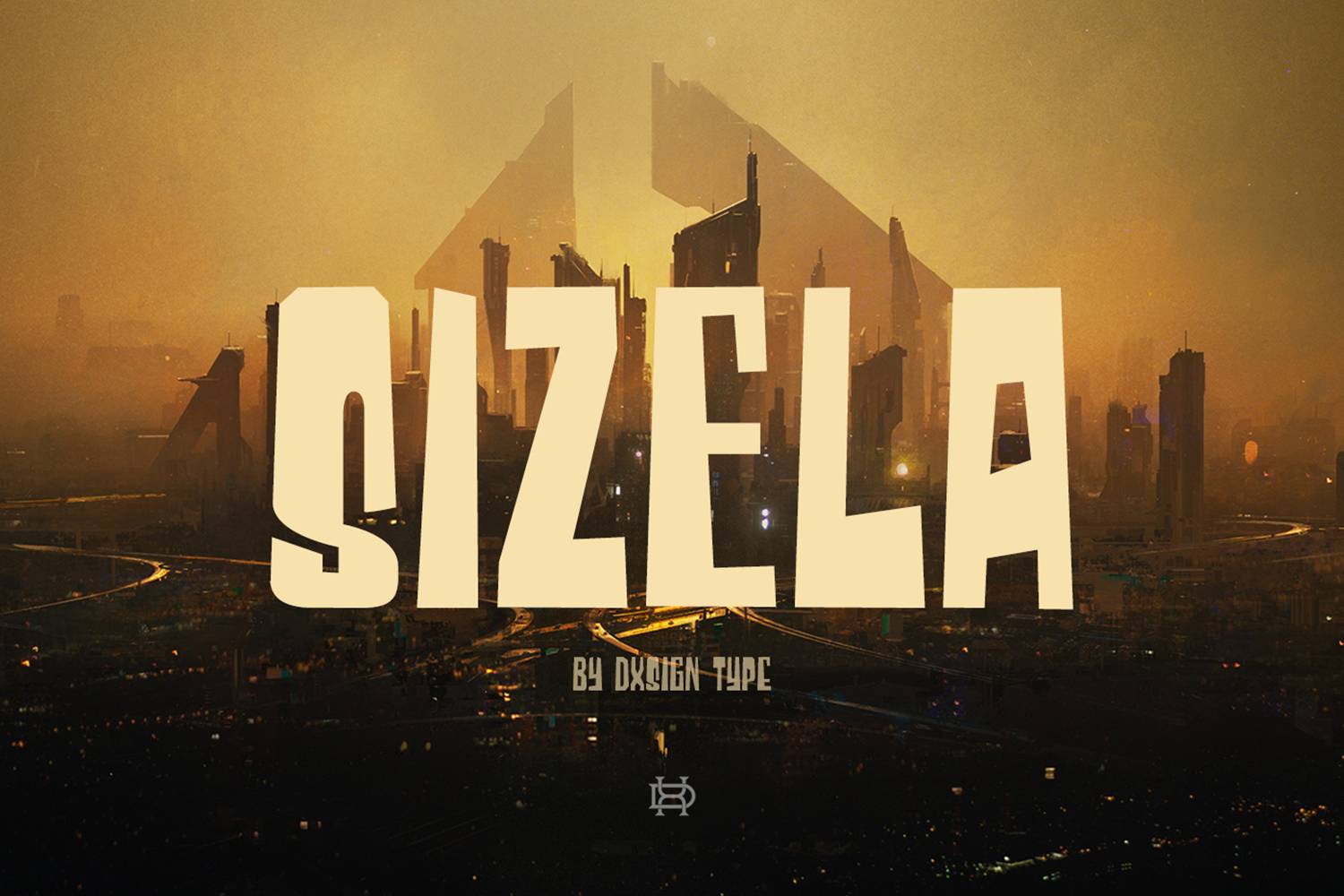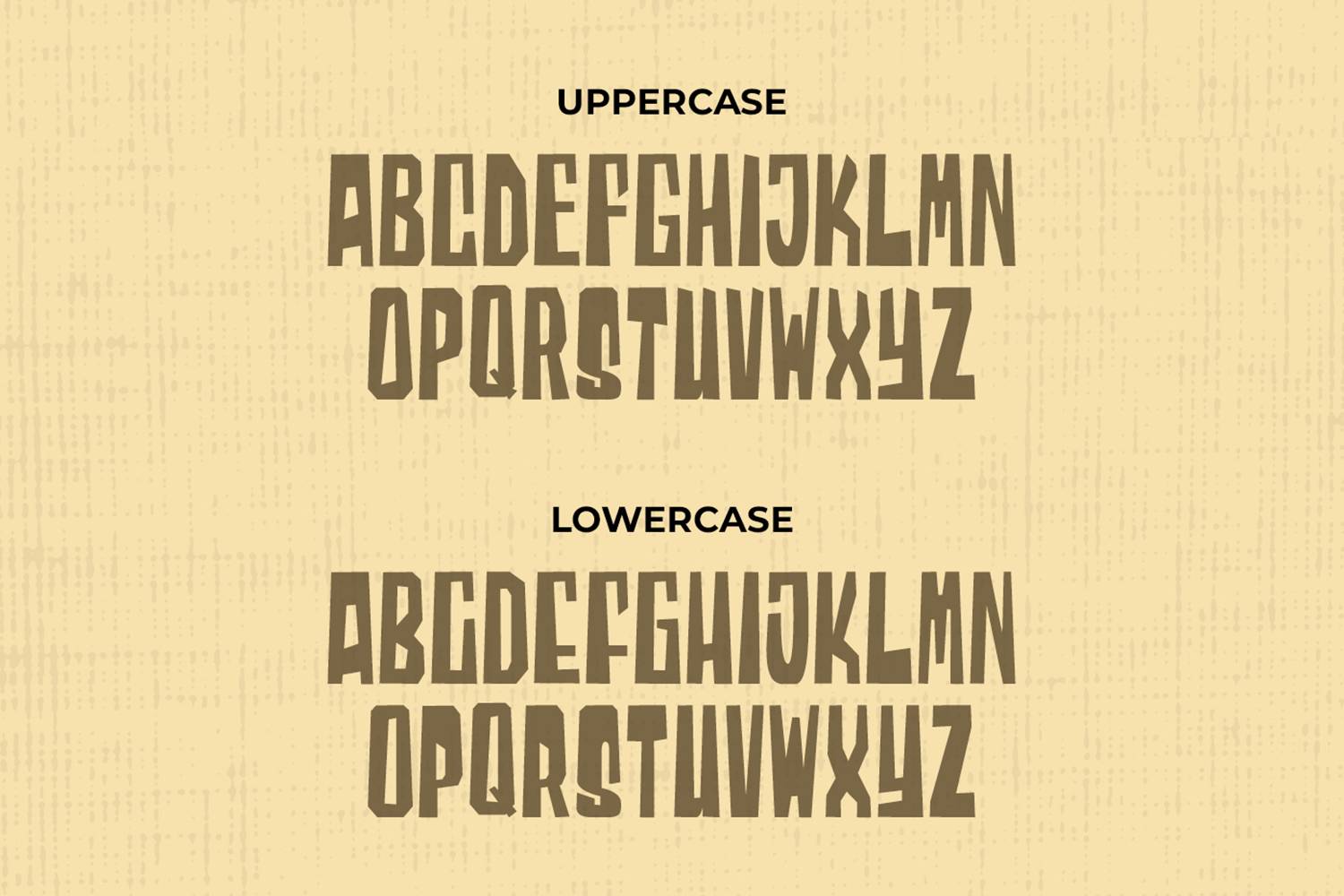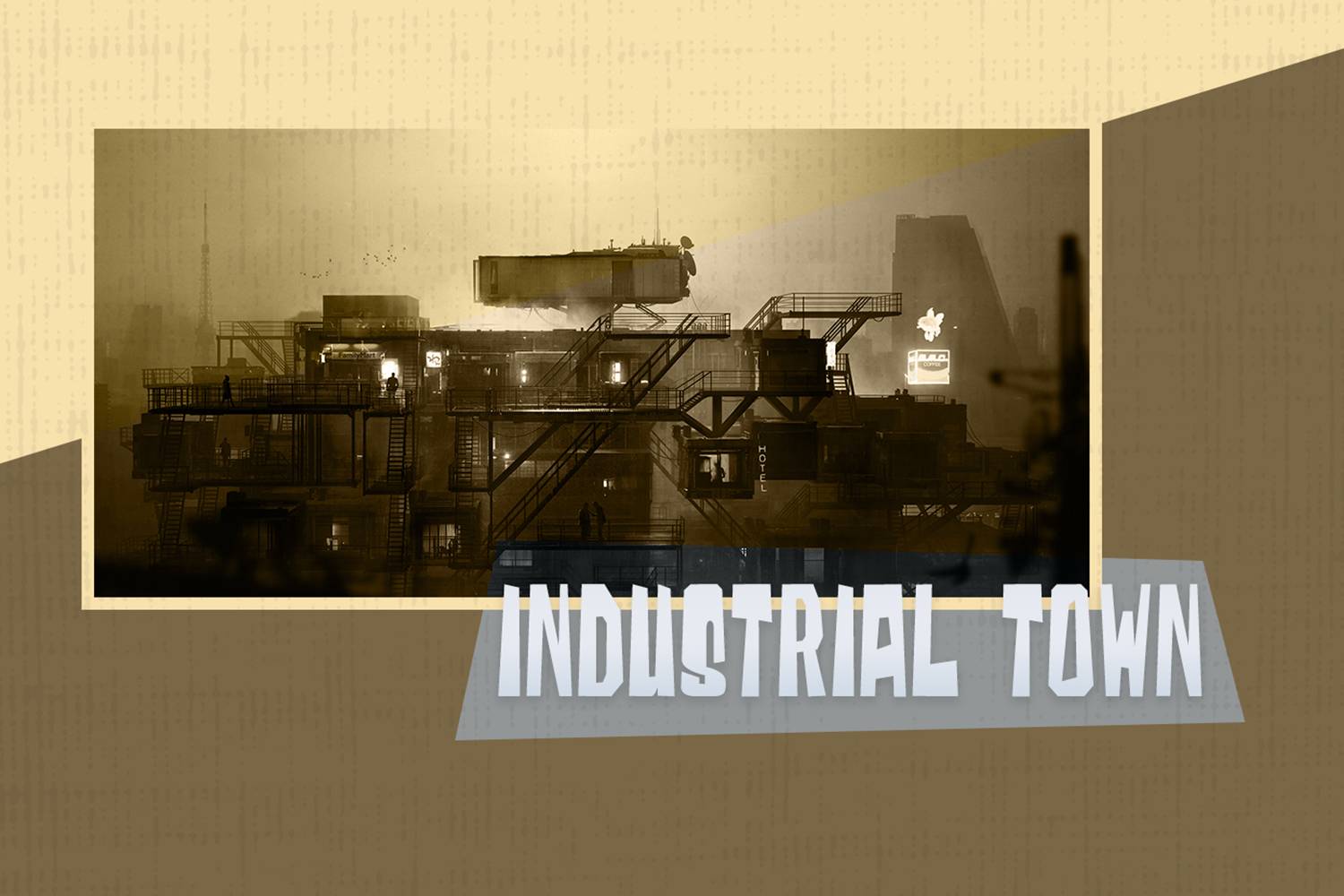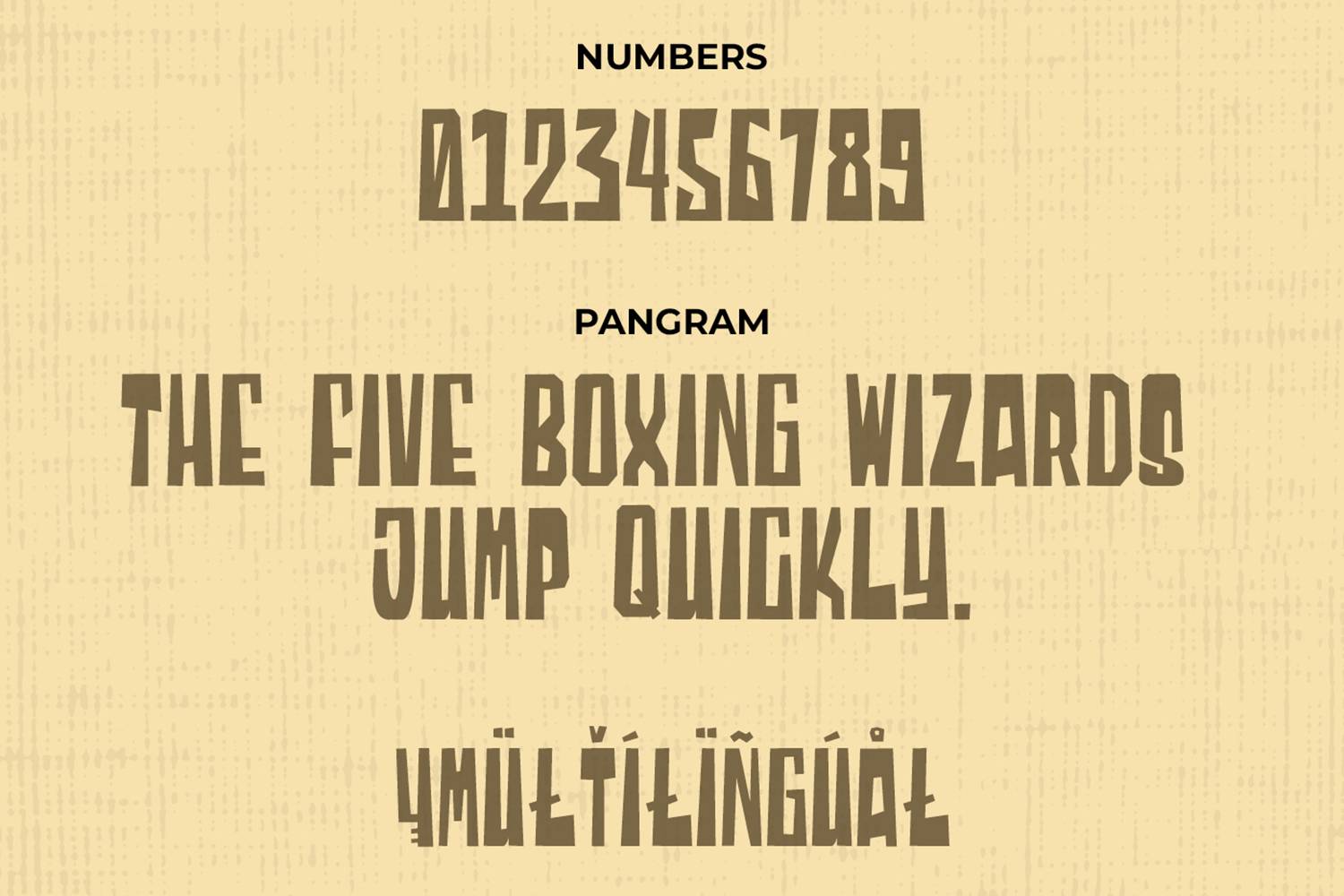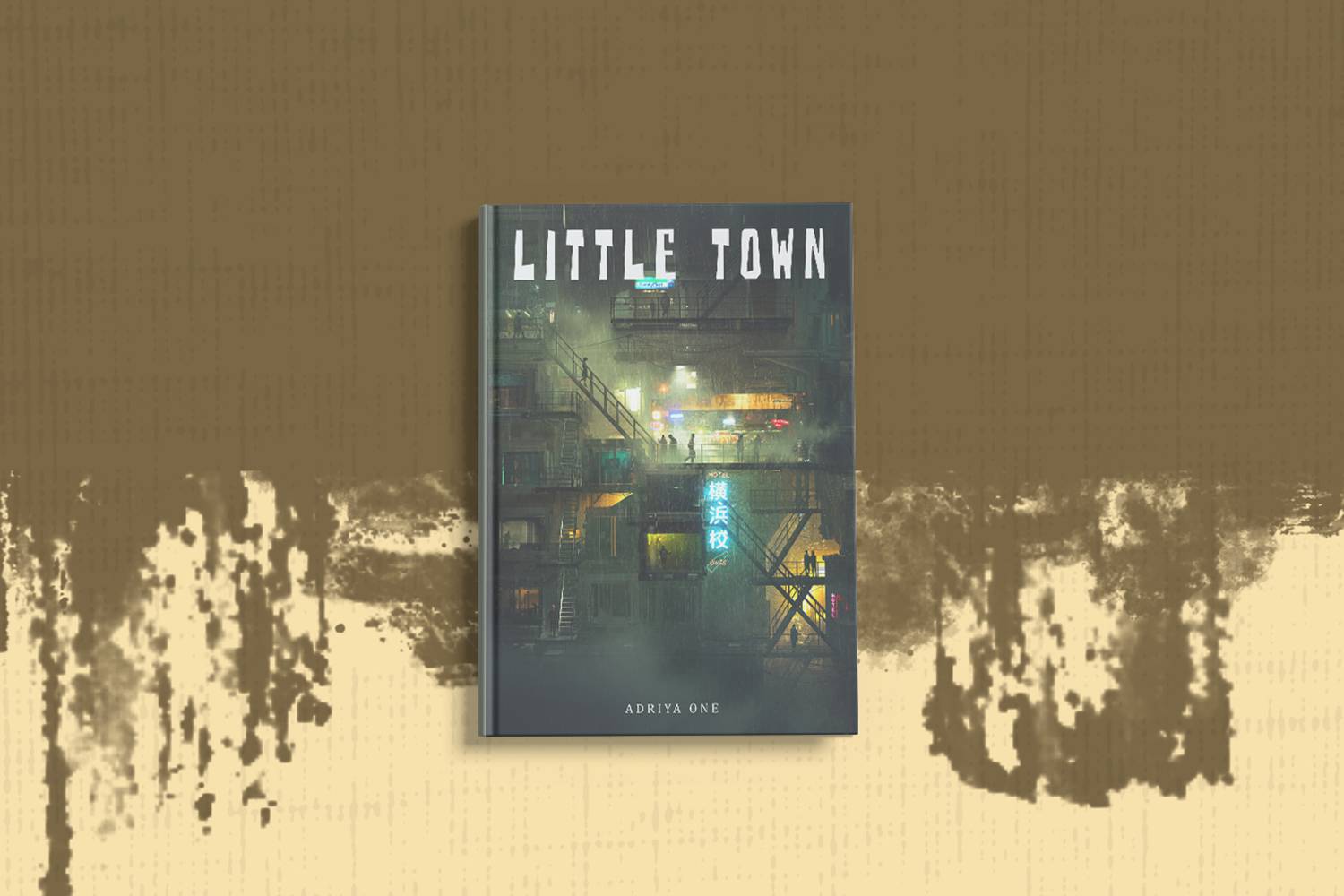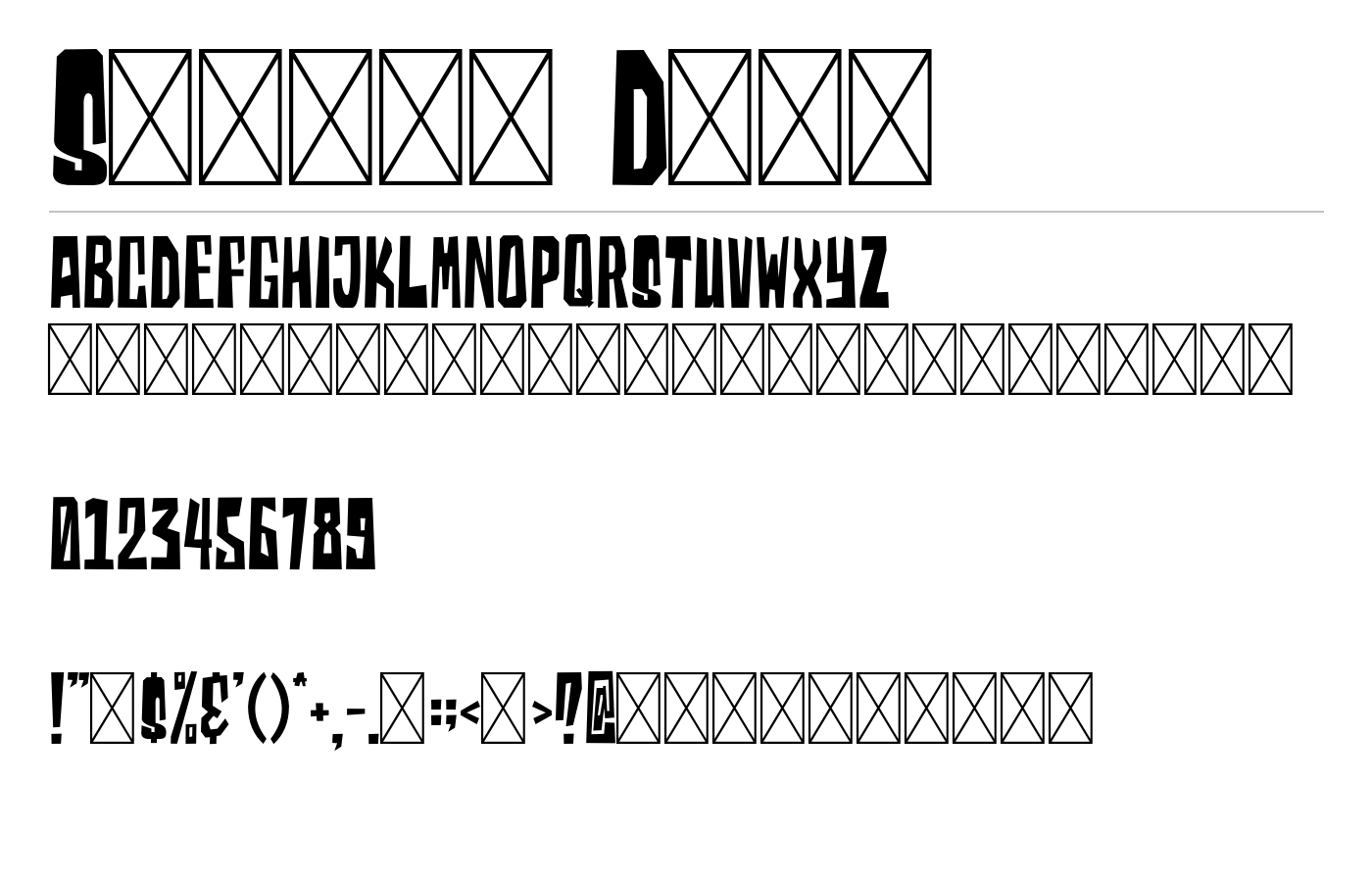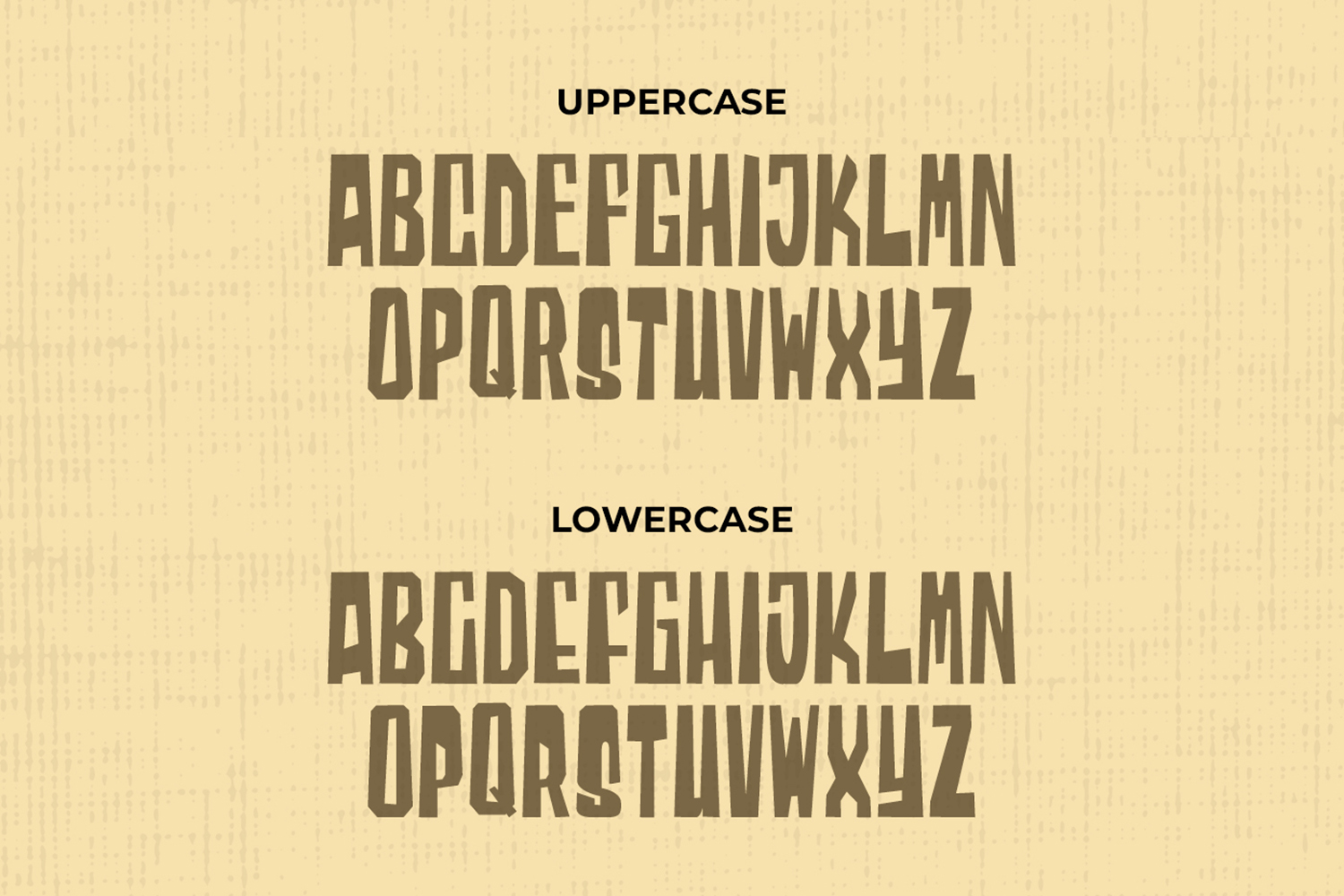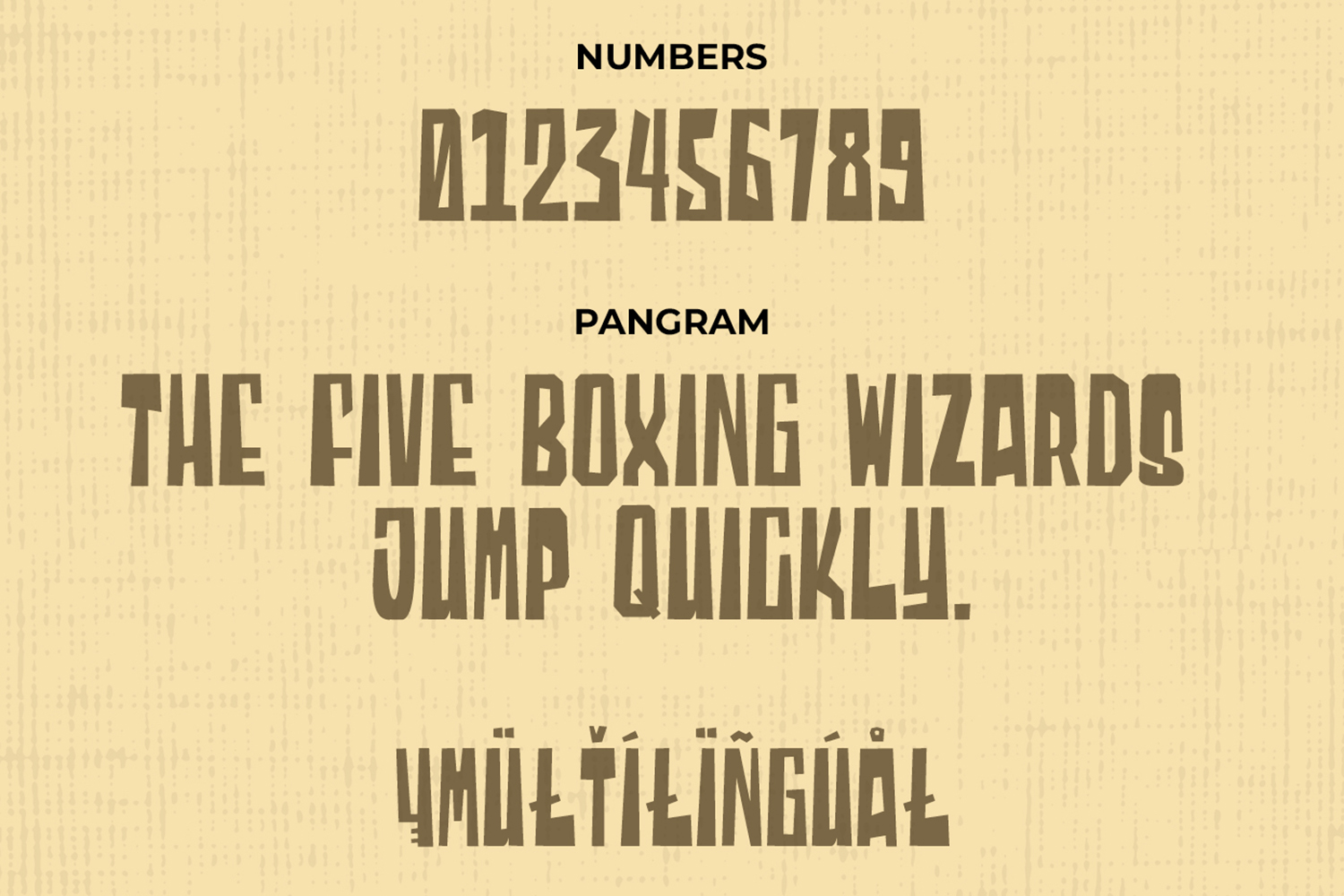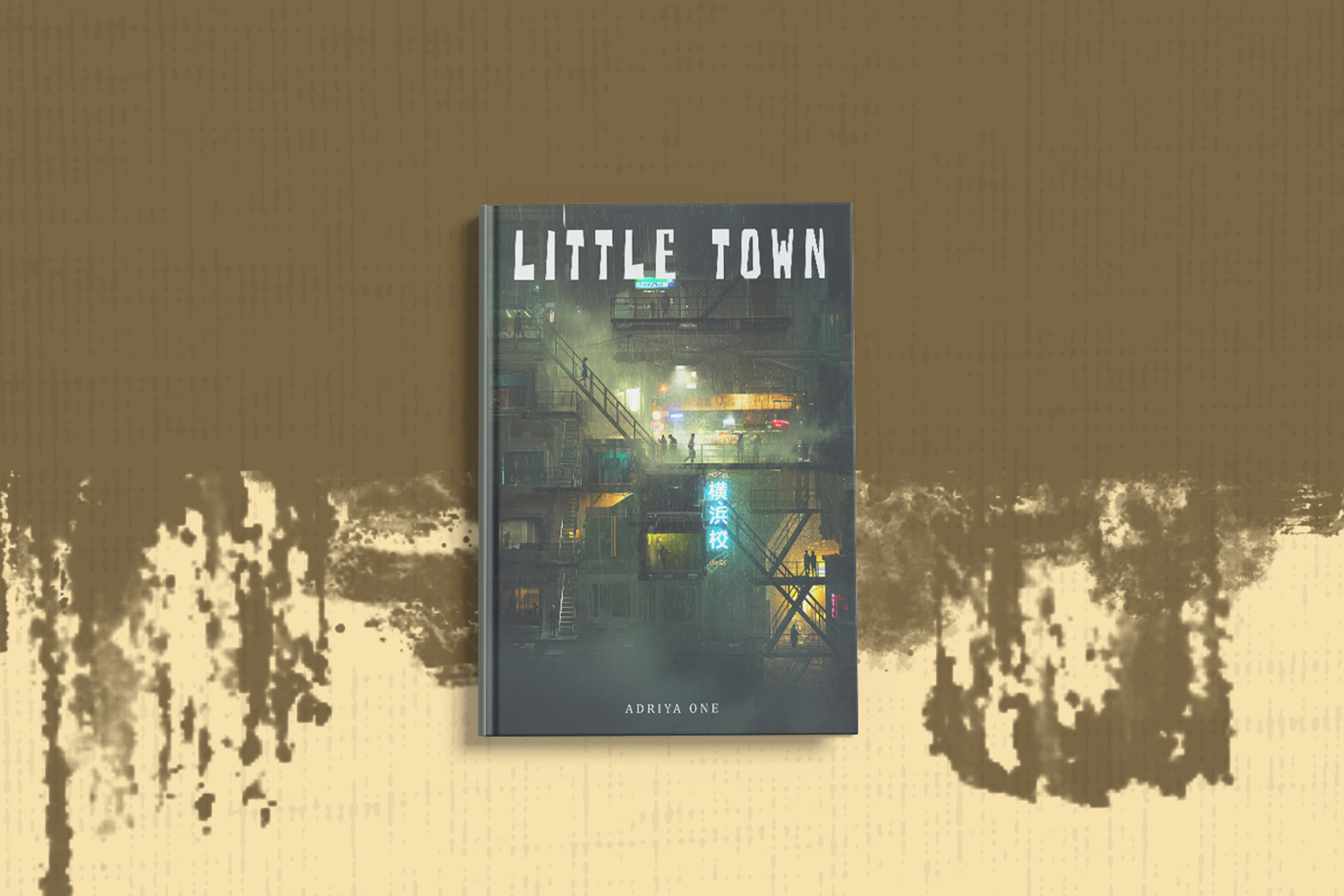
Sizela Typeface is a bold, condensed sans serif font with a quirky, hand-crafted feel characterized by uneven stroke widths and irregular letter shapes. Its tall, narrow forms and strong presence make it ideal for eye-catching headlines and display use, bringing a playful yet edgy personality to creative branding and poster designs. This font works best where distinctive, attention-grabbing typography is needed to convey energy and uniqueness.
Sizela Typeface
About Sizela Typeface